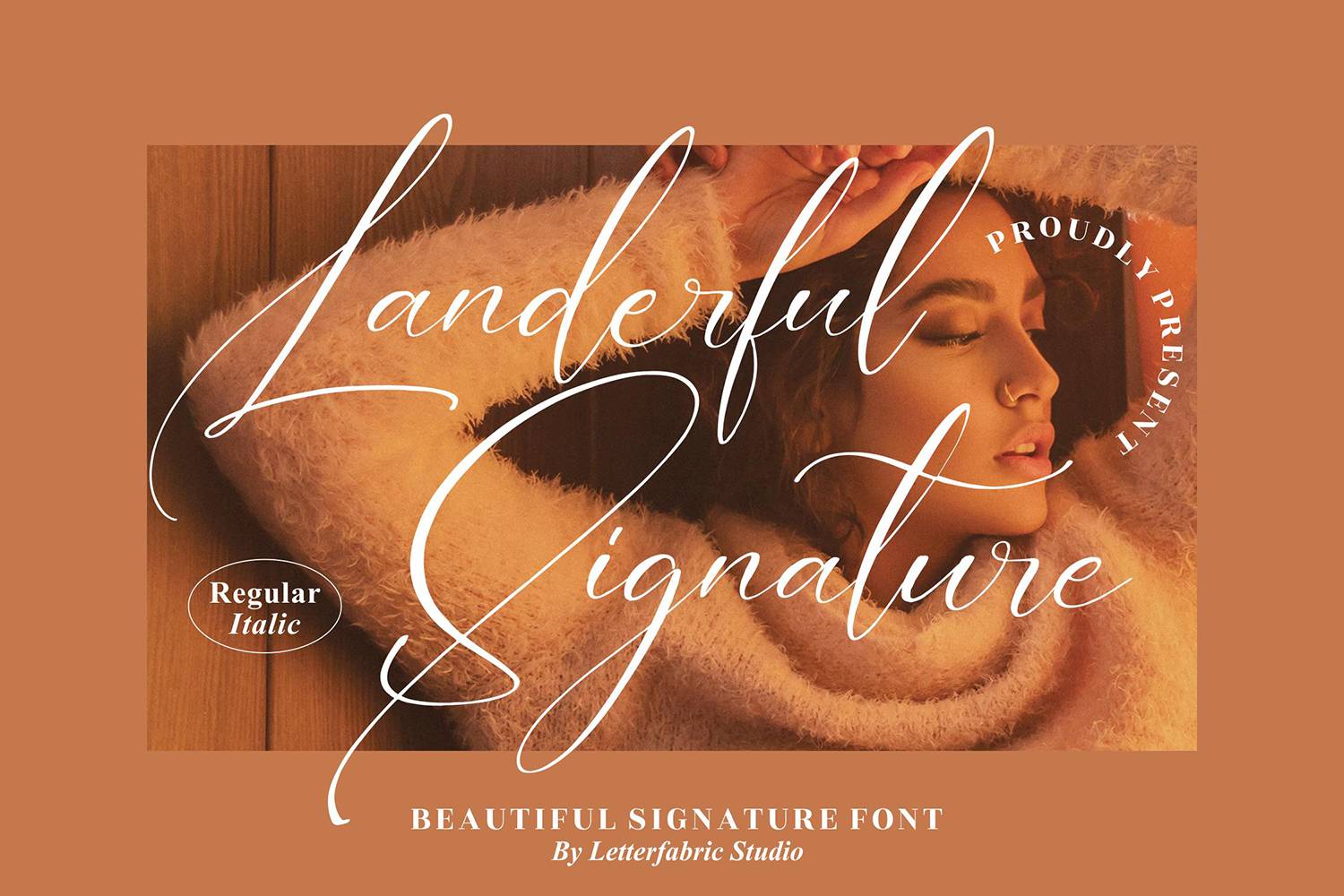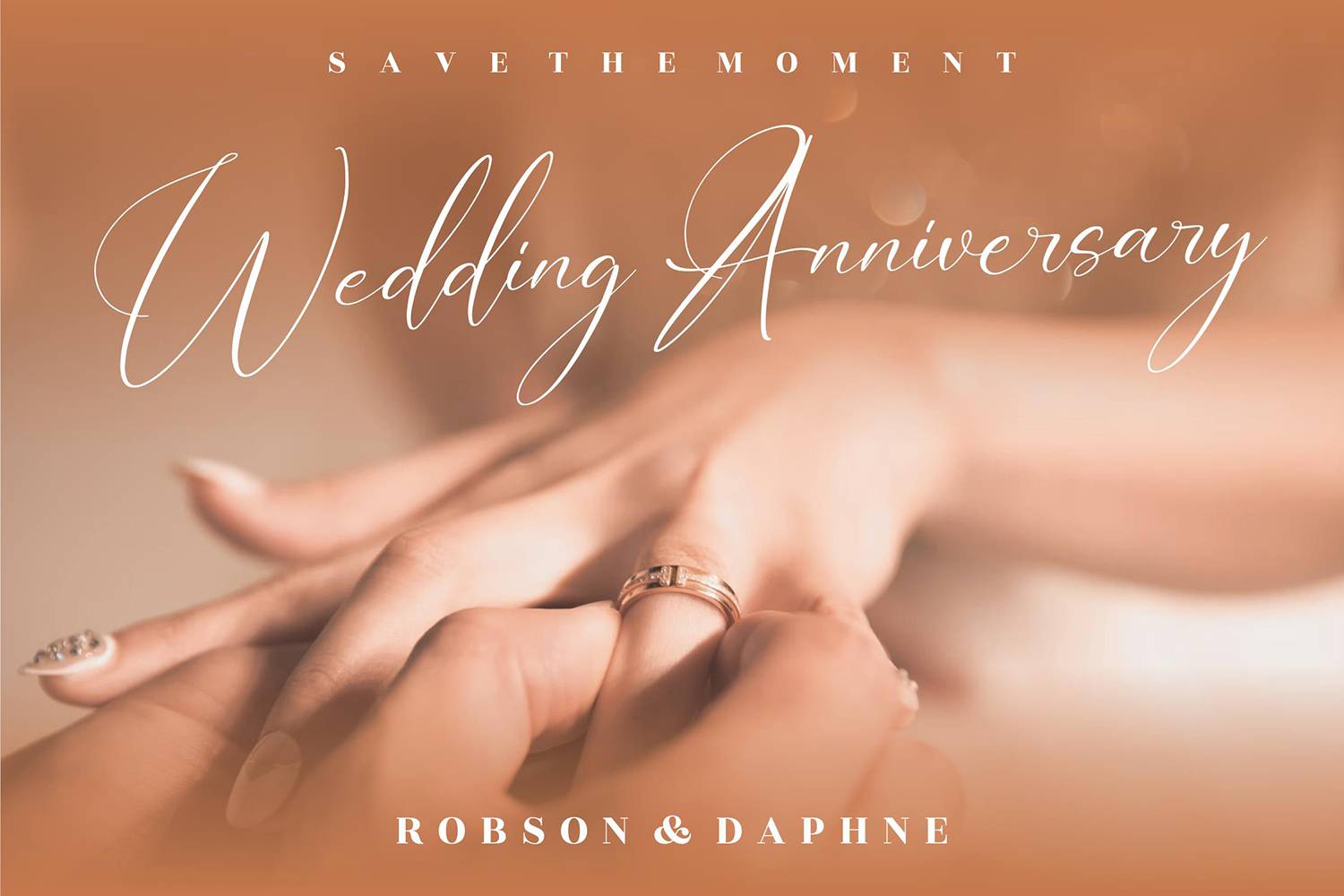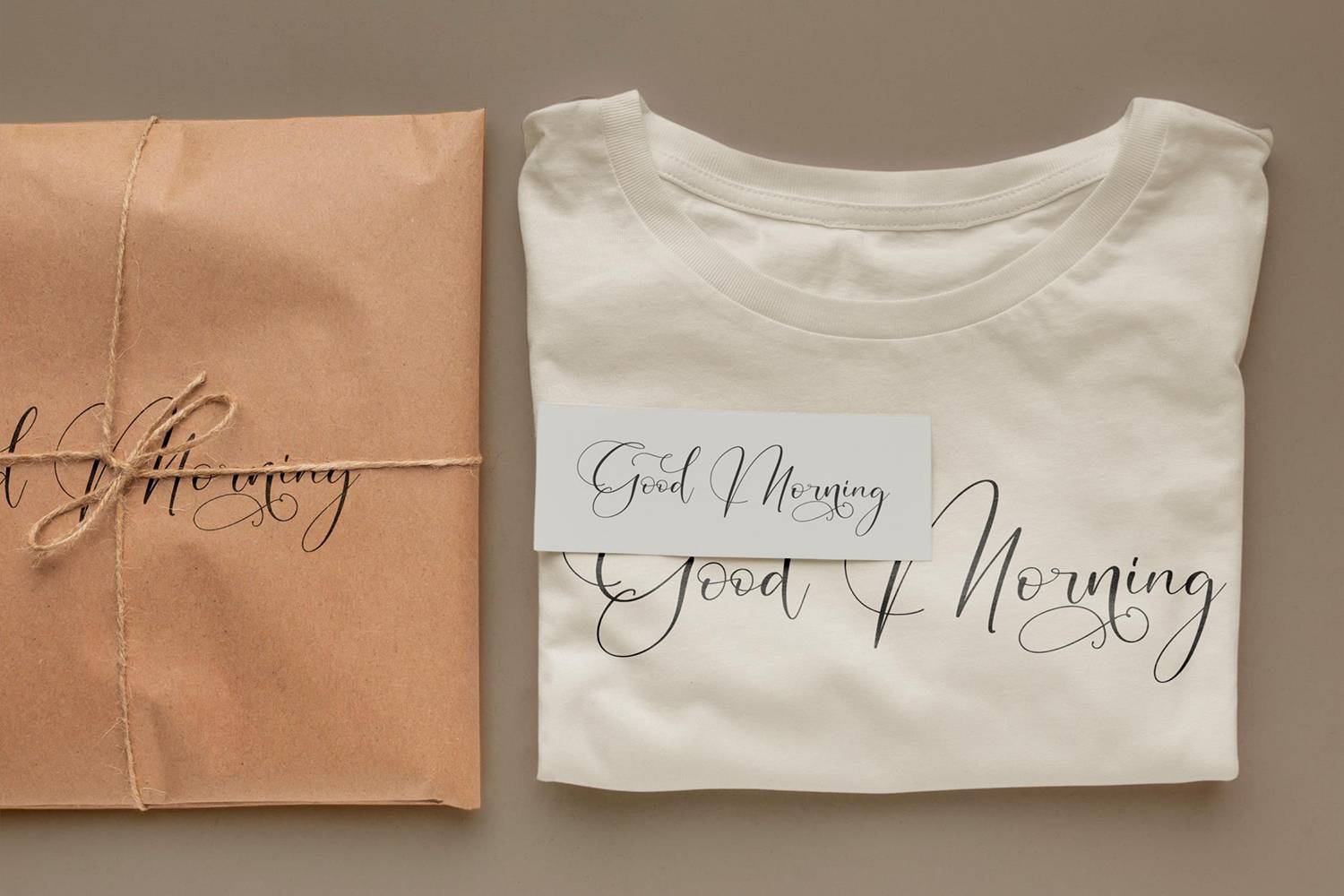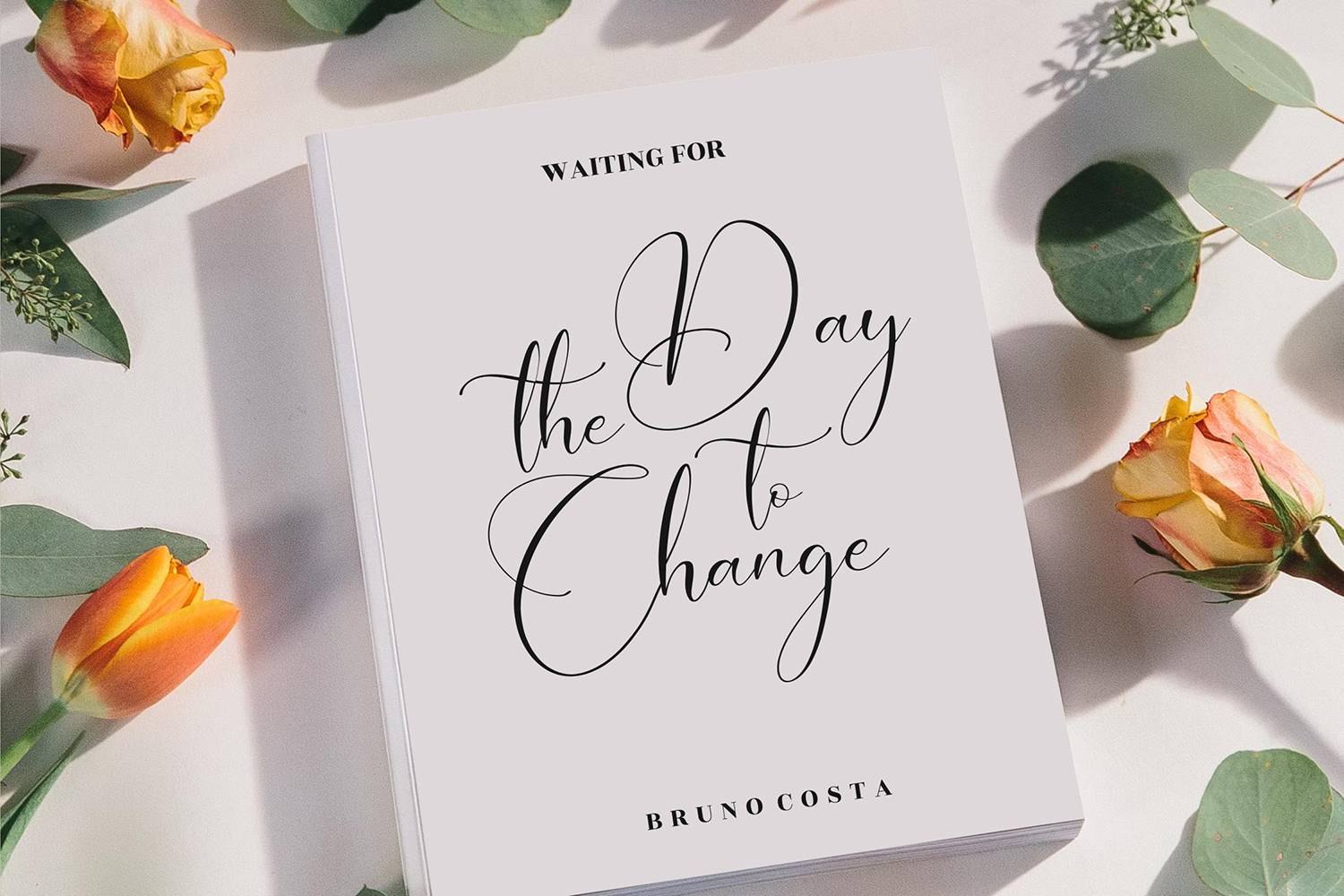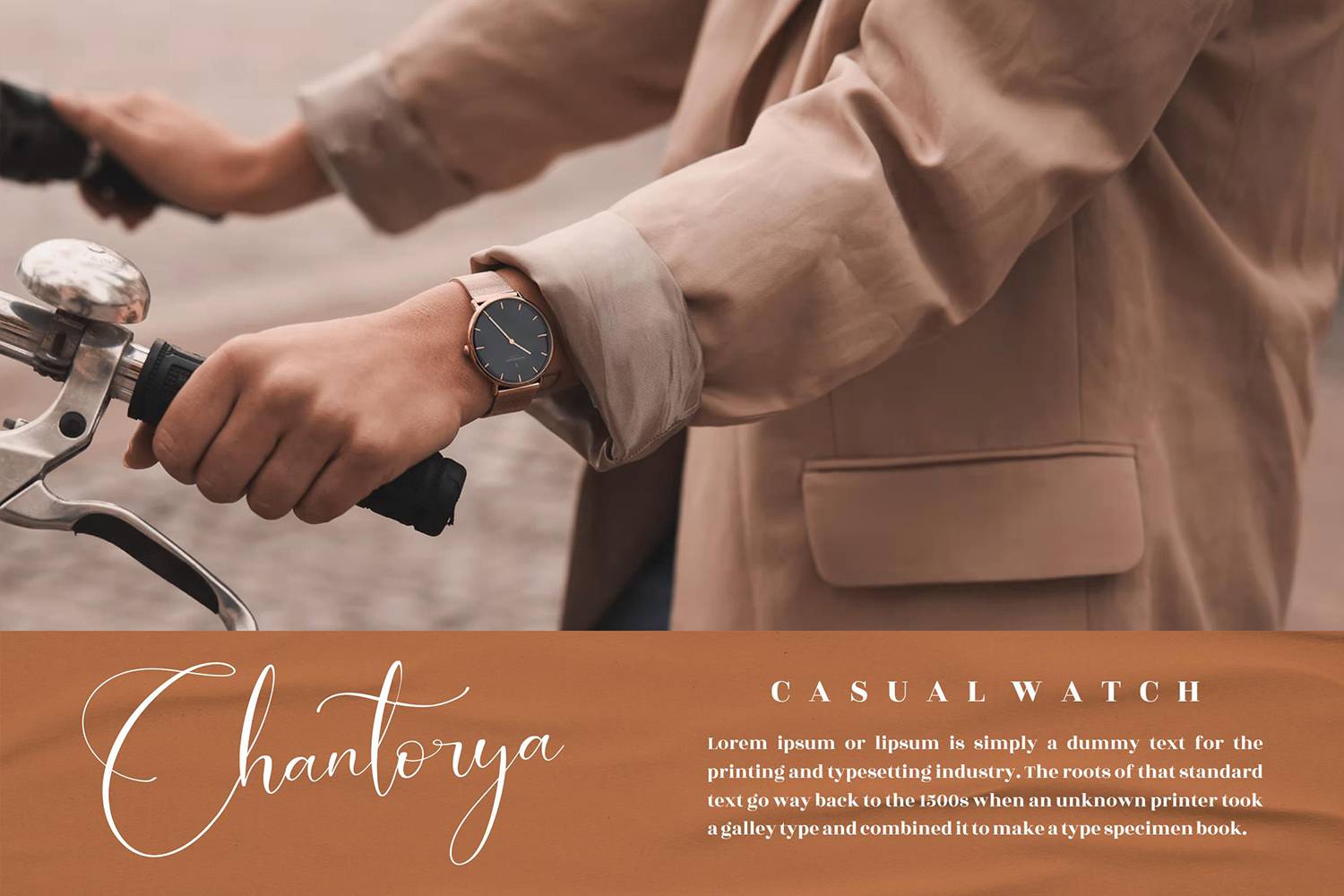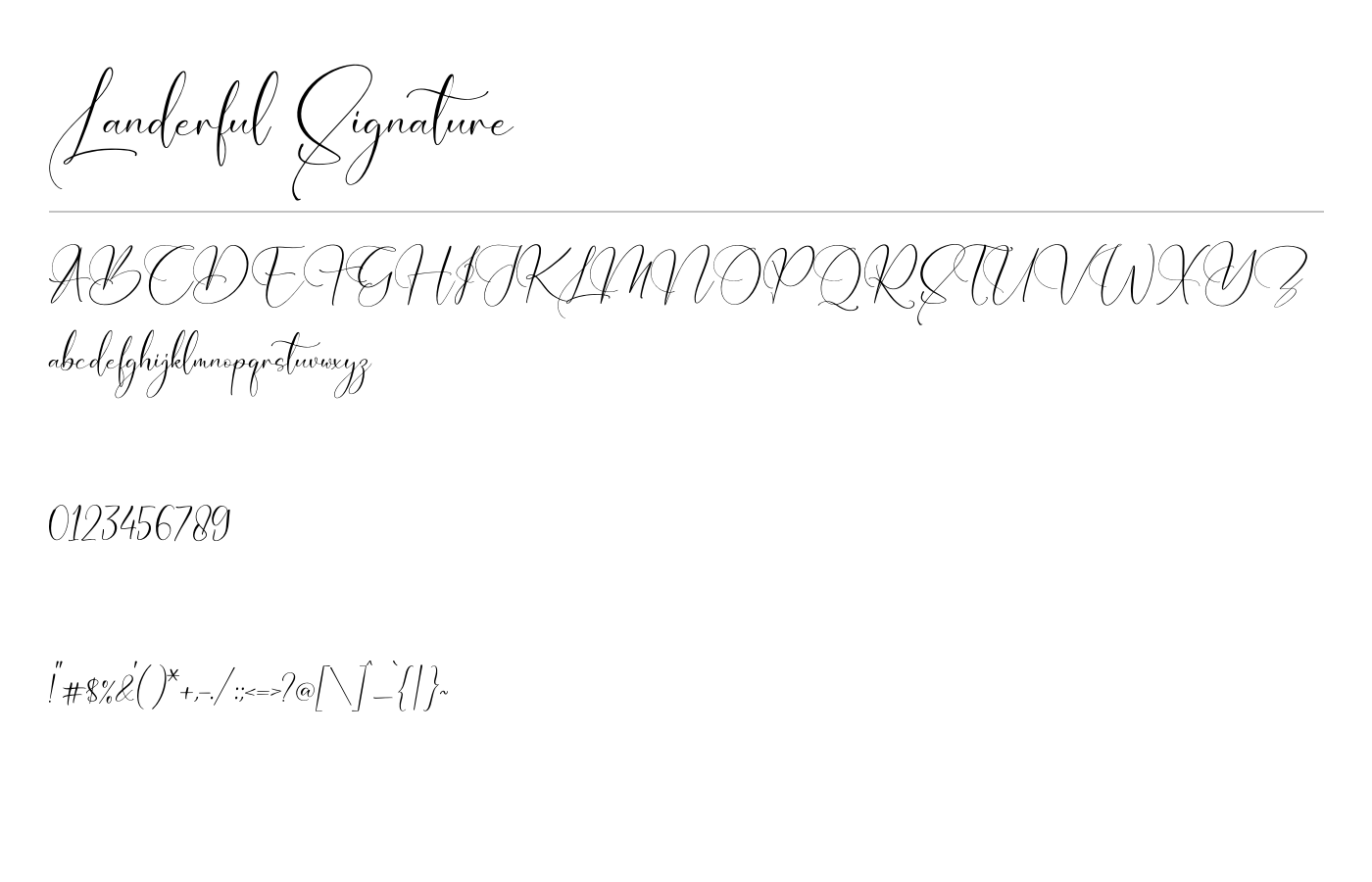
Landerful Signature Font is a delicate, elegant script font that mimics refined handwriting with its thin, flowing strokes and graceful swashes. Its light weight and high contrast strokes convey a sophisticated and personal feel, making it perfect for luxury branding, wedding invitations, and stylish logos. This font works best in display settings where its intricate letterforms can shine, adding a touch of charm and exclusivity.
Landerful Signature Font
About Landerful Signature Font